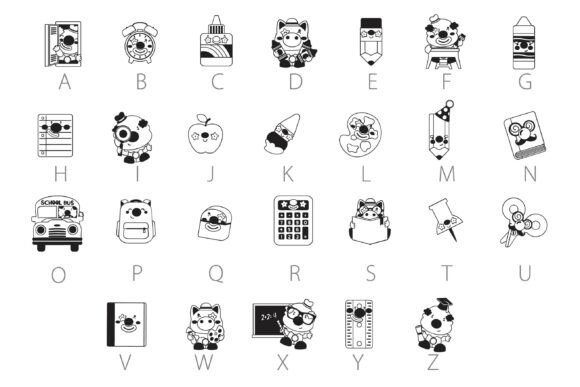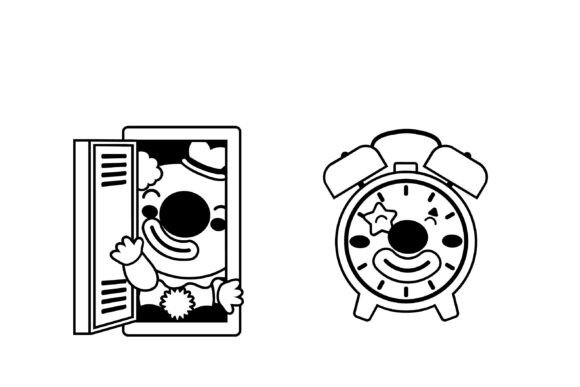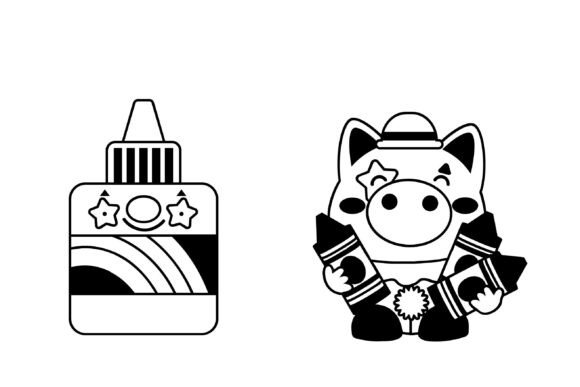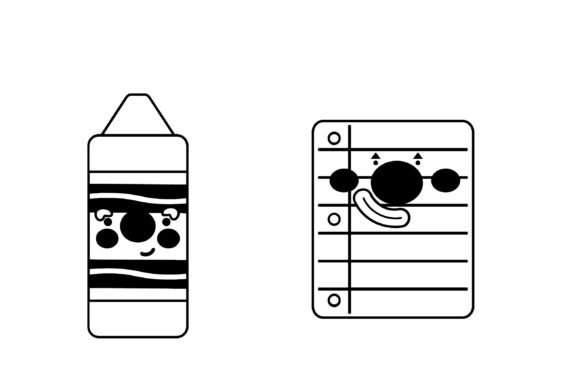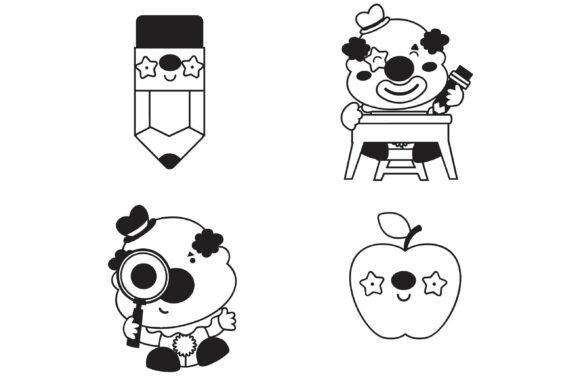
Clowning Around School Dingbats Font: Adding a Dash of Whimsy to Education
Are you tired of using the same old boring fonts for your educational materials? Look no further than the Clowning Around School Dingbats Font! This delightful font is designed to bring a touch of humor and playfulness to the classroom, making learning an adventure for students of all ages.
What is Clowning Around School Dingbats Font?
Clowning Around School Dingbats Font is a creative dingbat font that reinterprets classic school supplies through a whimsical lens. Imagine a clown-faced alarm clock, pencils in party hats, and a school bus driven by a silly friend. This font takes the ordinary and turns it into something extraordinary, making it perfect for teacher resources, back-to-school flyers, educational worksheets, and playful library branding.
Key Features of Clowning Around School Dingbats Font
- Whimsical Design: Each character in the font is carefully crafted to bring a smile to your face. From glue bottles with smiley faces to rulers with sunglasses, every detail is designed to add a touch of humor to your educational materials.
- Variety of Academic Icons: The font includes a wide range of academic icons, such as notebooks, pencils, and school buses, all infused with a cheerful, hand-drawn personality.
- Hand-Drawn Personality: The font has a unique, artisanal feel that makes it perfect for creating engaging and interactive educational materials.
Uses for Clowning Around School Dingbats Font
Clowning Around School Dingbats Font is an incredibly versatile font that can be used in a variety of educational settings. Here are some ideas to get you started:
- Teacher Resources: Use the font to create engaging and interactive teacher resources, such as worksheets, quizzes, and activity sheets.
- Back-to-School Flyers: Create eye-catching back-to-school flyers that will grab the attention of students and parents alike.
- Educational Worksheets: Add a touch of whimsy to your educational worksheets, making learning fun and engaging for students.
- Playful Library Branding: Use the font to create playful and engaging branding for your school library, making it a welcoming and fun place for students to explore.
Benefits of Using Clowning Around School Dingbats Font
Using Clowning Around School Dingbats Font in your educational materials has a range of benefits, including:
- Engaging Students: The font’s playful design helps to engage students and make learning more fun.
- Adding Creativity: The font’s whimsical design adds a touch of creativity to your educational materials, making them more visually appealing.
- Encouraging Imagination: The font’s use of imaginative and fantastical designs encourages students to think creatively and explore their imagination.
Clowning Around School Dingbats Font is a unique and creative font that brings a touch of humor and playfulness to the classroom. With its whimsical design, variety of academic icons, and hand-drawn personality, it’s the perfect choice for teacher resources, back-to-school flyers, educational worksheets, and playful library branding. So why not add a dash of whimsy to your educational materials and make learning an adventure with Clowning Around School Dingbats Font?